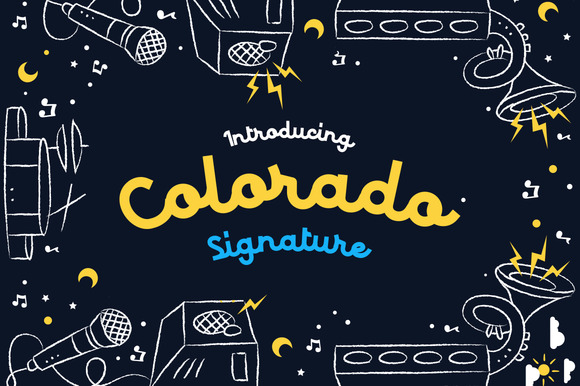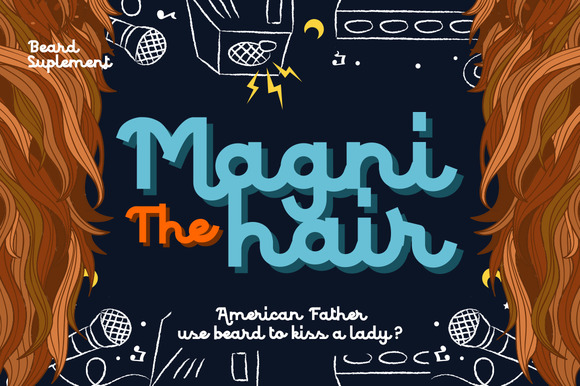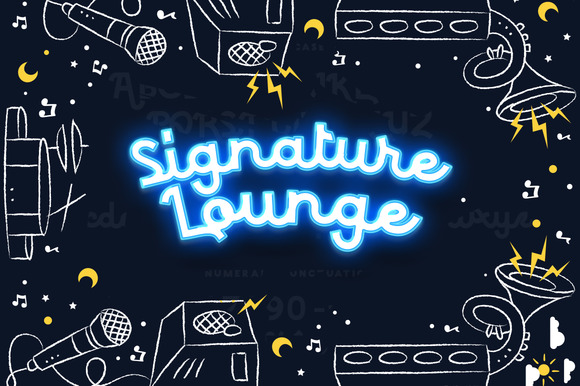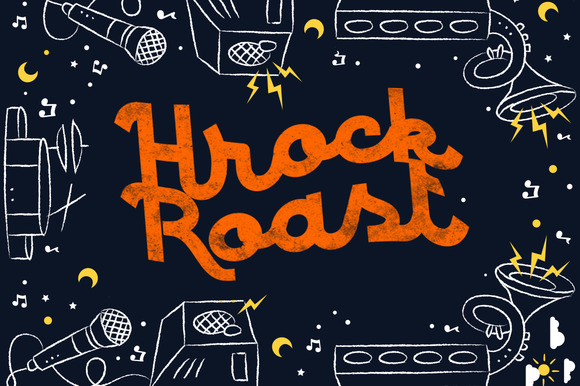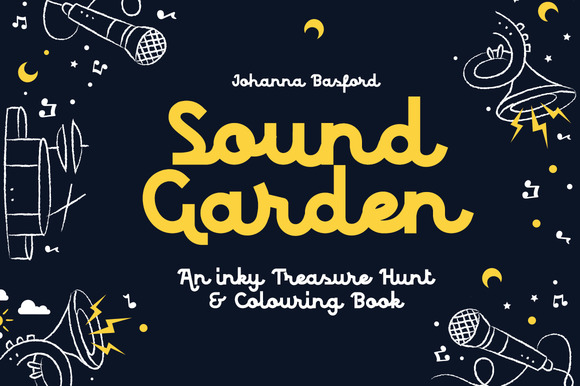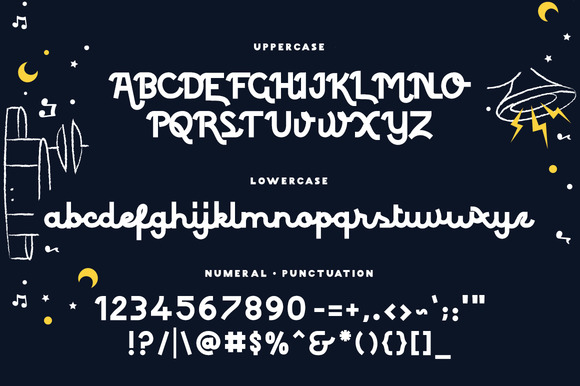
Colorado Font
About Colorado Font
Colorado is a font inspired by old retro signed painting.
The Colorado font comes with a solid look which works great for branding.